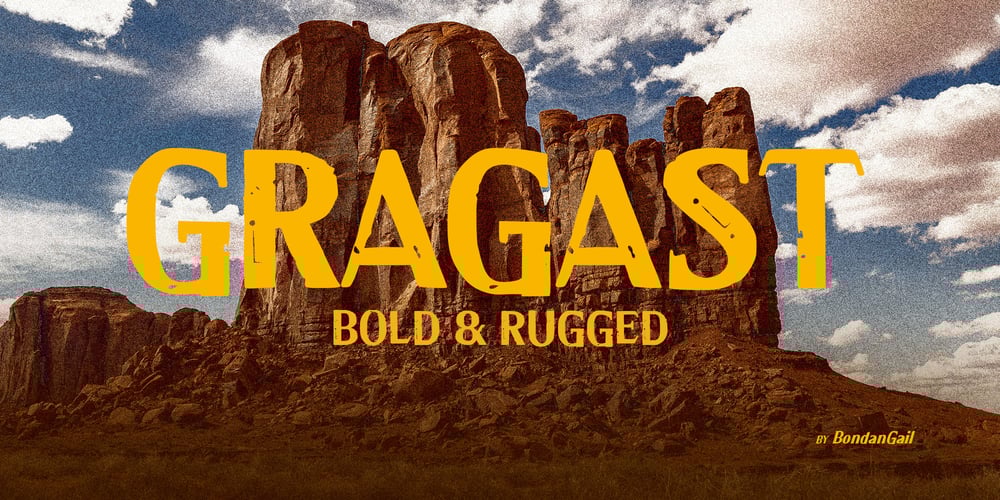
Gragast Font Family was designed by Wahyu Eka Prasetya, Bondan Gail Saputro and published by BondanGail. Gragast contains 2 styles and family package options. Gragast Font will gives a feel of vintage, classic, old, handmade looked like by BondanGail Studio.Gragast Font is perfect for people looking for vintage aesthetic or hand drawn logo. Suitable for any graphic designs such as branding materials, outdoor brands, logo, poster, t-shirt, etc. Gragast font captures the spirit of adventure and creativity, making it a versatile choice for various design applications. Its strong visual presence ensures it can be used effectively in logos, headlines, and promotional materials, resonating with audiences who embrace the outdoors.